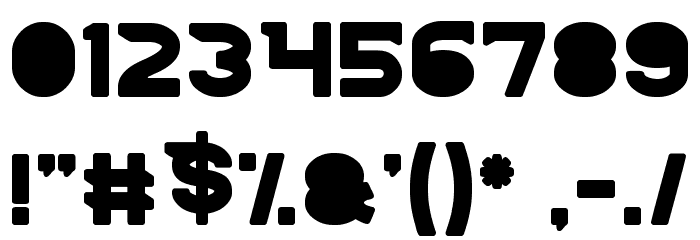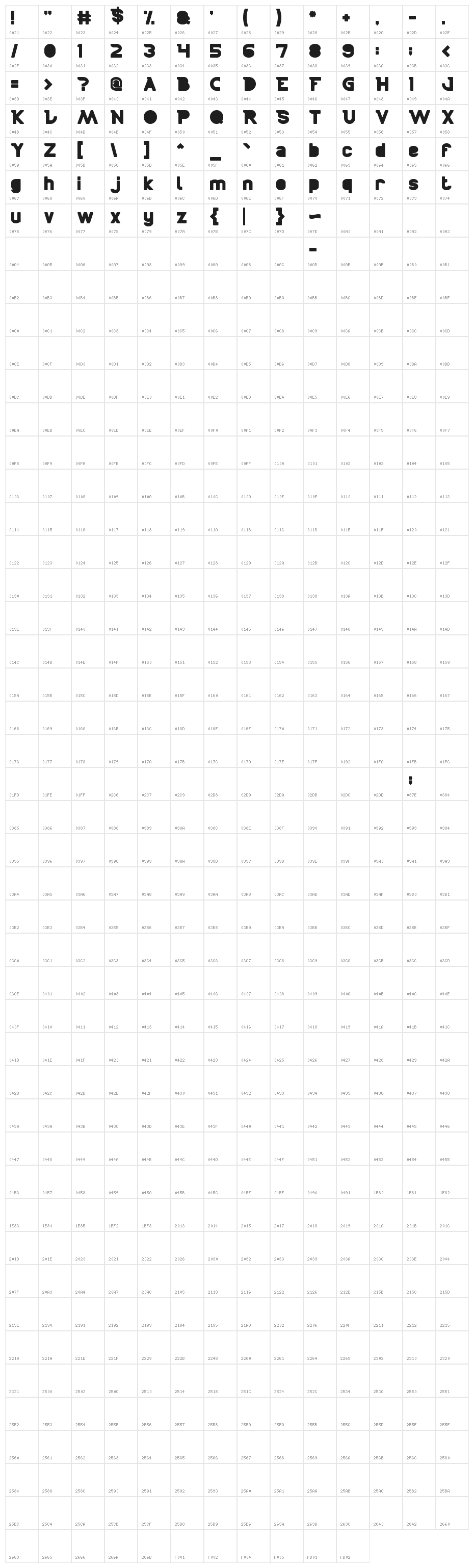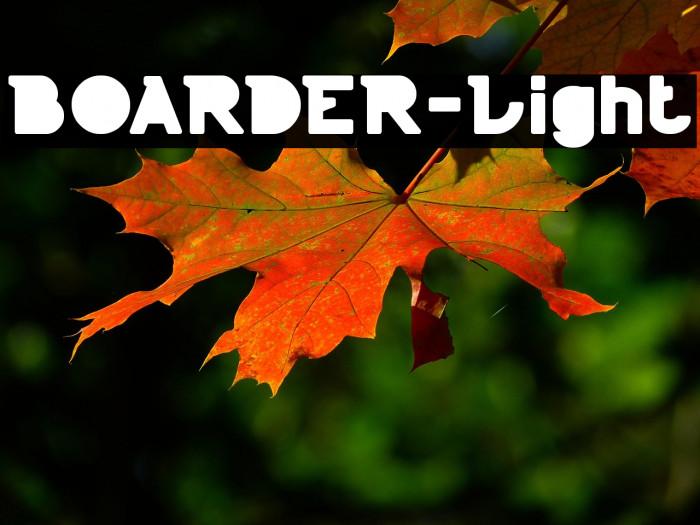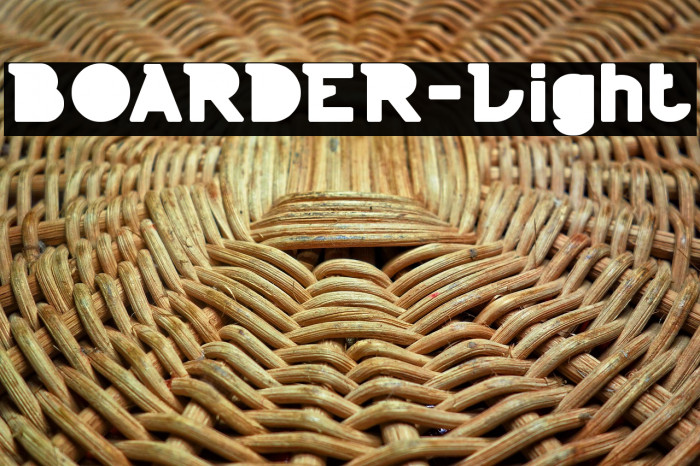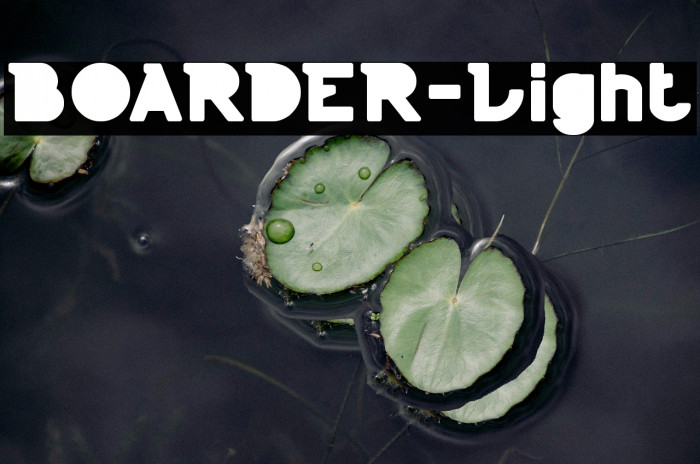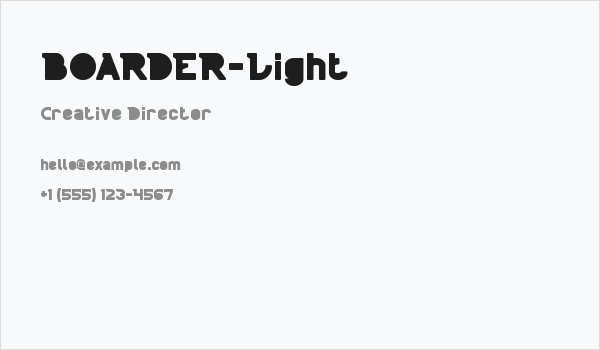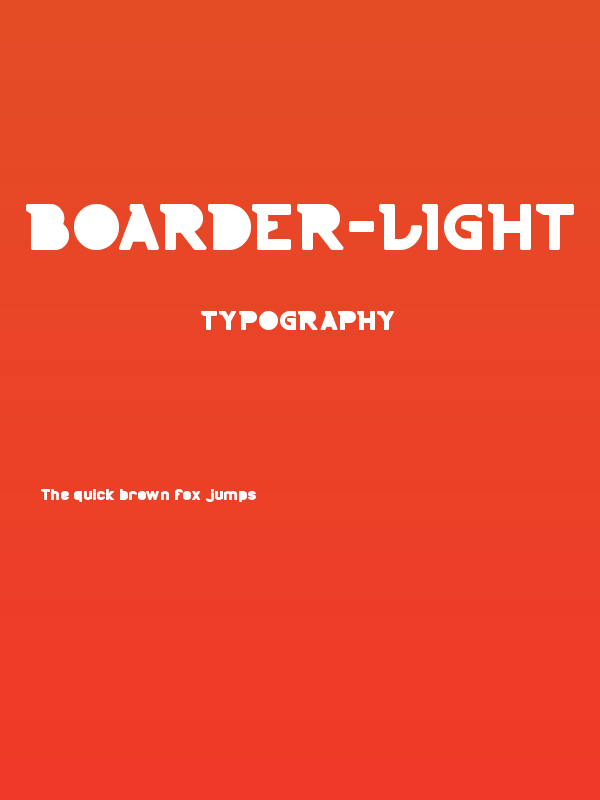
BOARDER-Light Font
BOARDER-Light Description
This font features a bold and playful design with a distinctly modern aesthetic. The characters are rounded and thick, giving a sense of friendliness and approachability. The uppercase letters are uniform in height, while the lowercase letters maintain a consistent baseline, enhancing readability. The numbers are robust and clear, matching the overall style of the alphabet. Special characters are well-integrated, maintaining the font's cohesive appearance. The font's boldness makes it suitable for eye-catching designs, while its rounded edges add a touch of softness.
| Proposed Projects | Ideal for branding, posters, children's books, and playful graphic designs. |